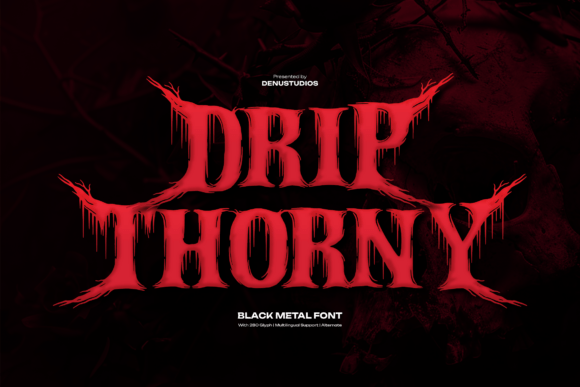
Unleash the Fury: Introducing Drip Thorny Font
In the realm of typography, few fonts evoke the same level of intensity and raw aggression as Drip Thorny, a striking black metal blackletter display font. This menacing typeface seamlessly fuses brutal intensity with haunting visual style, making it the perfect addition to any design project that demands an unapologetic edge. From metal band logos to horror posters, album covers, and dark-themed merchandise, Drip Thorny is poised to dominate visual spaces with its visceral impact.
The Aesthetic of Extreme Metal
Drip Thorny’s design is deeply rooted in the aesthetics of extreme metal, a genre known for its aggressive sound and macabre visual style. The font’s bold letterforms bleed with organic drips and feature thorn-like extensions, evoking the dark, mystical, and often terrifying themes found in extreme metal artwork. Each glyph is meticulously crafted to convey a sense of ferocity and foreboding, making Drip Thorny an ideal choice for designers seeking to create striking, attention-grabbing visuals.
Design Features and Versatility
One of the standout features of Drip Thorny is its comprehensive design, boasting 280 glyphs that offer a wide range of stylistic options. This extensive character set ensures that designers have access to the tools they need to create complex, visually stunning text arrangements. Moreover, Drip Thorny supports multiple languages, making it a versatile choice for global design projects.
The font also includes alternate characters, which provide designers with the flexibility to experiment with different visual styles and create unique, customized text. Whether you’re designing a metal band logo or a horror-themed poster, Drip Thorny’s alternate characters allow you to tailor your typography to fit your project’s specific aesthetic.
PUA (Private Use Area) encoding is a feature that sets Drip Thorny apart from other fonts. This encoding allows designers to access all alternate characters and flourishes with ease, without the need for specialized design tools. As a result, you can unlock the full creative potential of Drip Thorny and experiment with different visual styles to achieve the perfect look for your project.
Ideal Applications for Drip Thorny
Drip Thorny’s aggressive, attention-grabbing aesthetic makes it suitable for a variety of design applications, including:
- Metal Band Logos: Create striking, memorable logos that capture the raw energy and intensity of extreme metal.
- Horror Posters: Add a touch of macabre elegance to your horror-themed posters and flyers.
- Album Covers: Elevate your music design with a font that embodies the spirit of extreme metal.
- Dark-Themed Merchandise: Design bold, eye-catching merchandise that appeals to fans of extreme metal and dark aesthetics.
Drip Thorny is more than just a font – it’s a design statement. With its brutal intensity, haunting visual style, and extensive feature set, this striking black metal blackletter display font is poised to dominate visual spaces. Whether you’re a designer, craftsperson, or simply a fan of extreme metal, Drip Thorny offers a unique opportunity to unleash your creativity and produce visually stunning work that demands attention. So why settle for ordinary typography when you can make a statement with Drip Thorny?